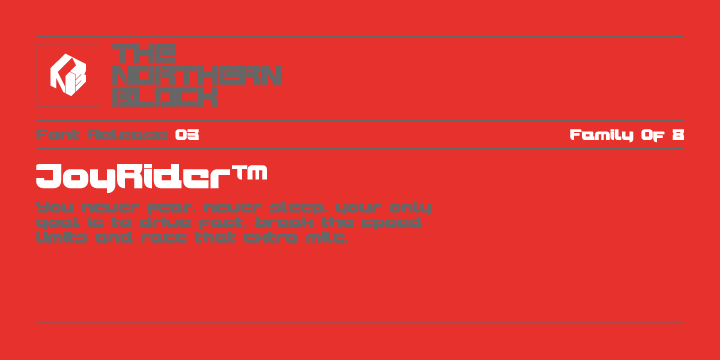
JoyRider™
Designed by: Jonathan Hill
Designed when: 2007
Design owned by: The Northern Block
Joy Rider
JoyRider is an 8-font family consisting of 4 weights with italics.
Its bold appearance is strongly influenced by motor racing and the fast car modification culture, hence the name JoyRider.